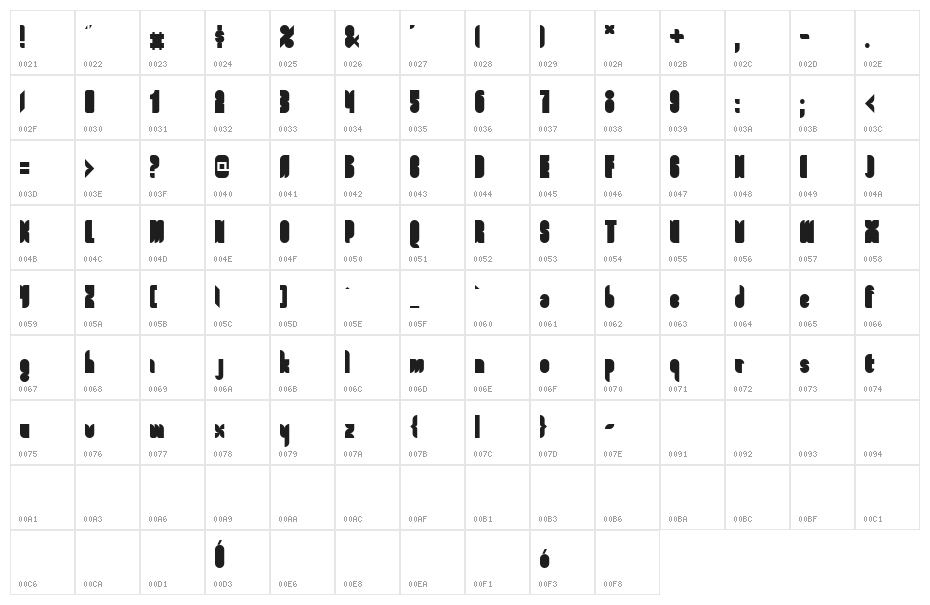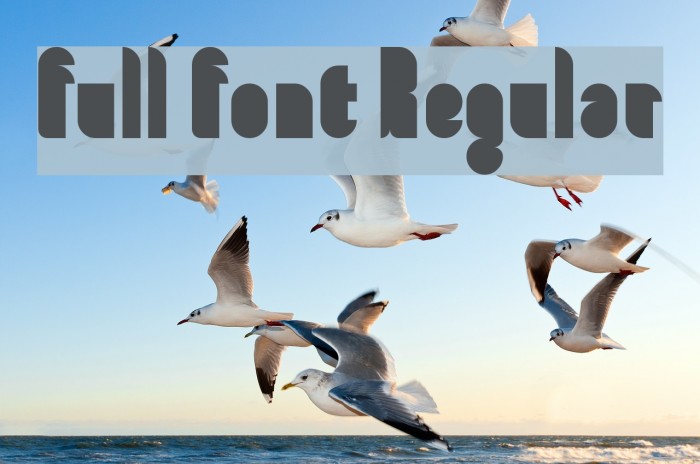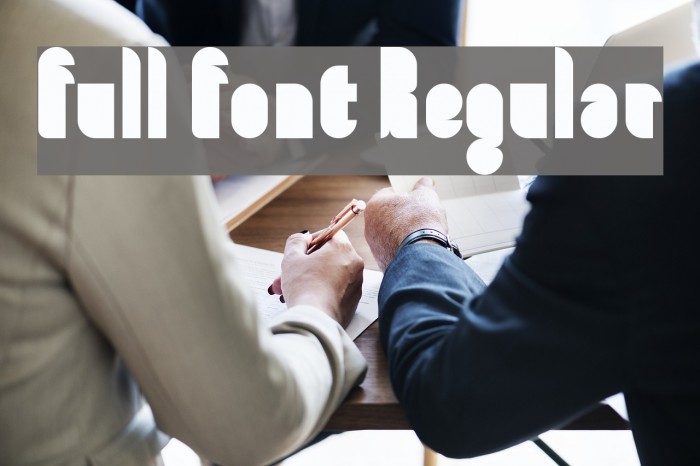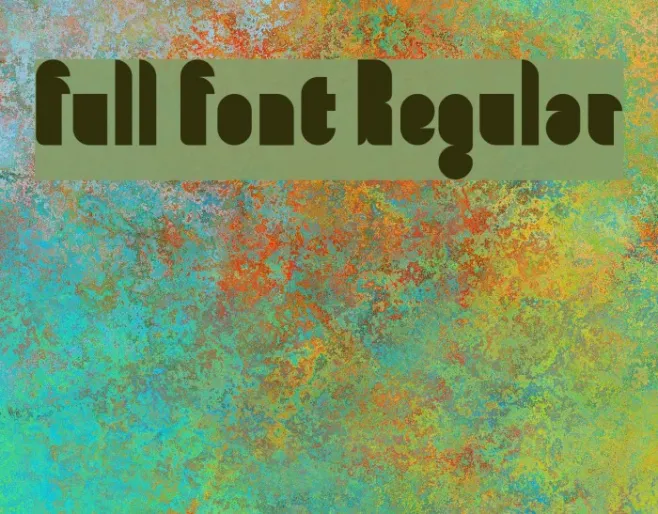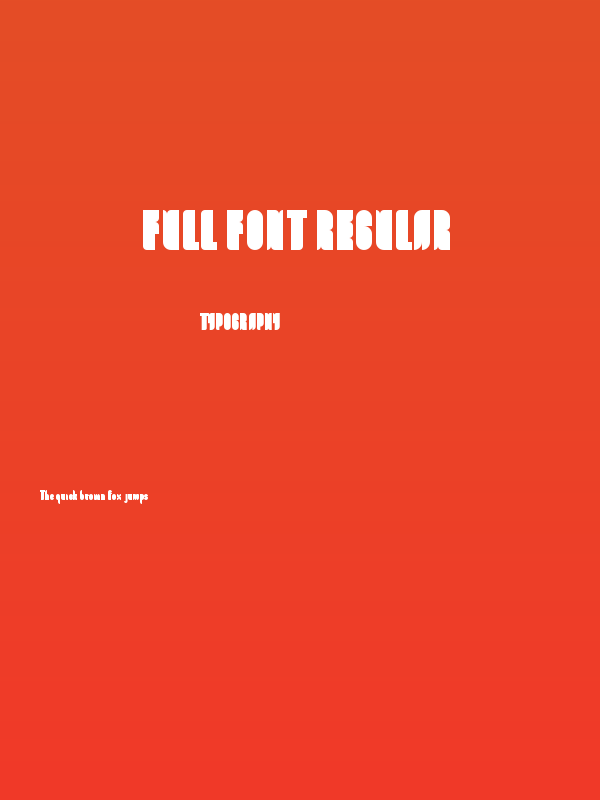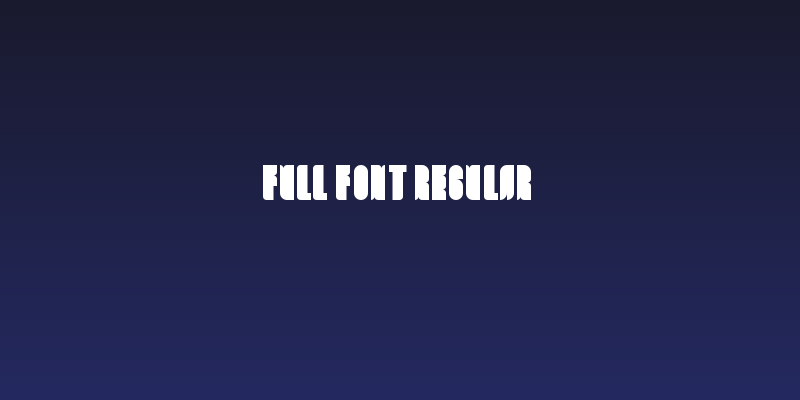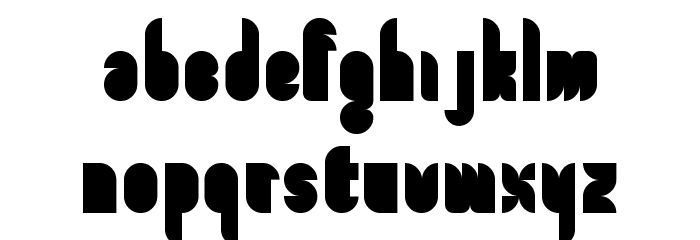
full font Regular Font
full font Regular Description
This bold and striking font features a unique, geometric design with thick, block-like characters. The letters are characterized by their rounded edges and consistent stroke width, creating a cohesive and modern appearance. The uppercase and lowercase letters maintain a uniform style, while the numerals and special characters complement the overall aesthetic. The font's boldness and distinct shapes make it highly visible and attention-grabbing, suitable for various creative applications.
| Proposed Projects | Ideal for posters, logos, branding, and headlines where a strong visual impact is desired. |